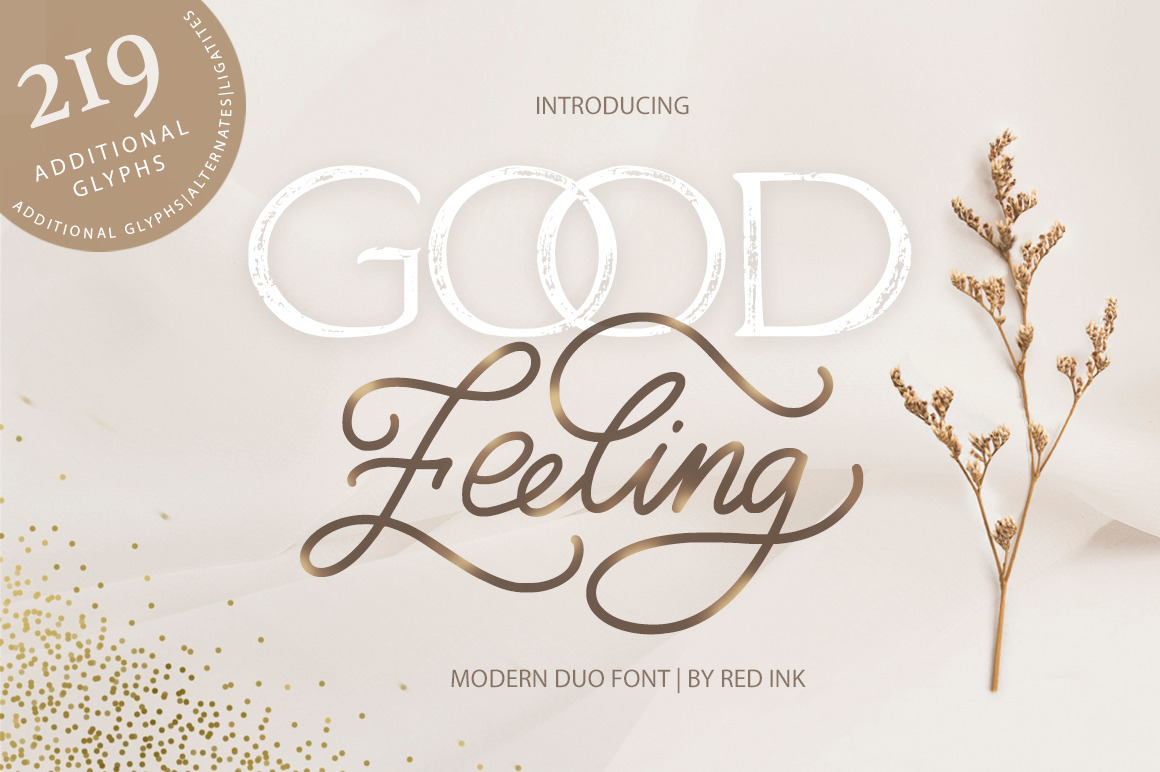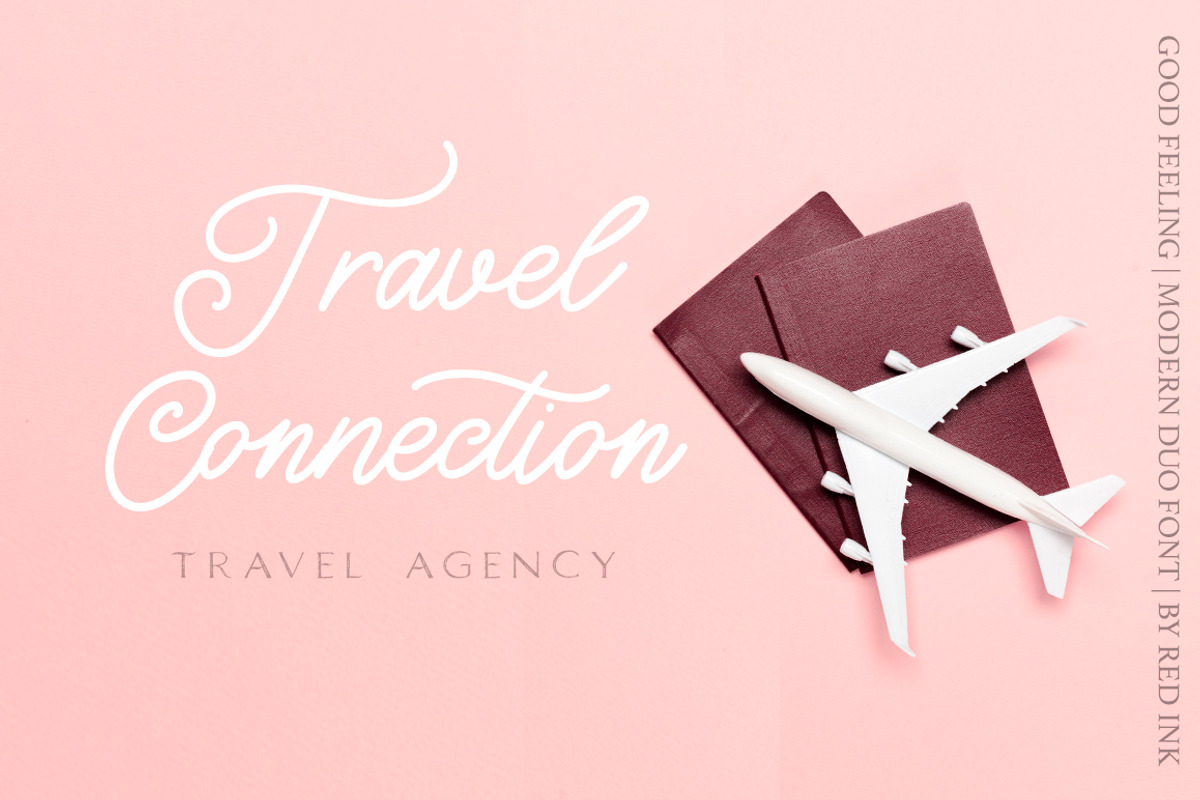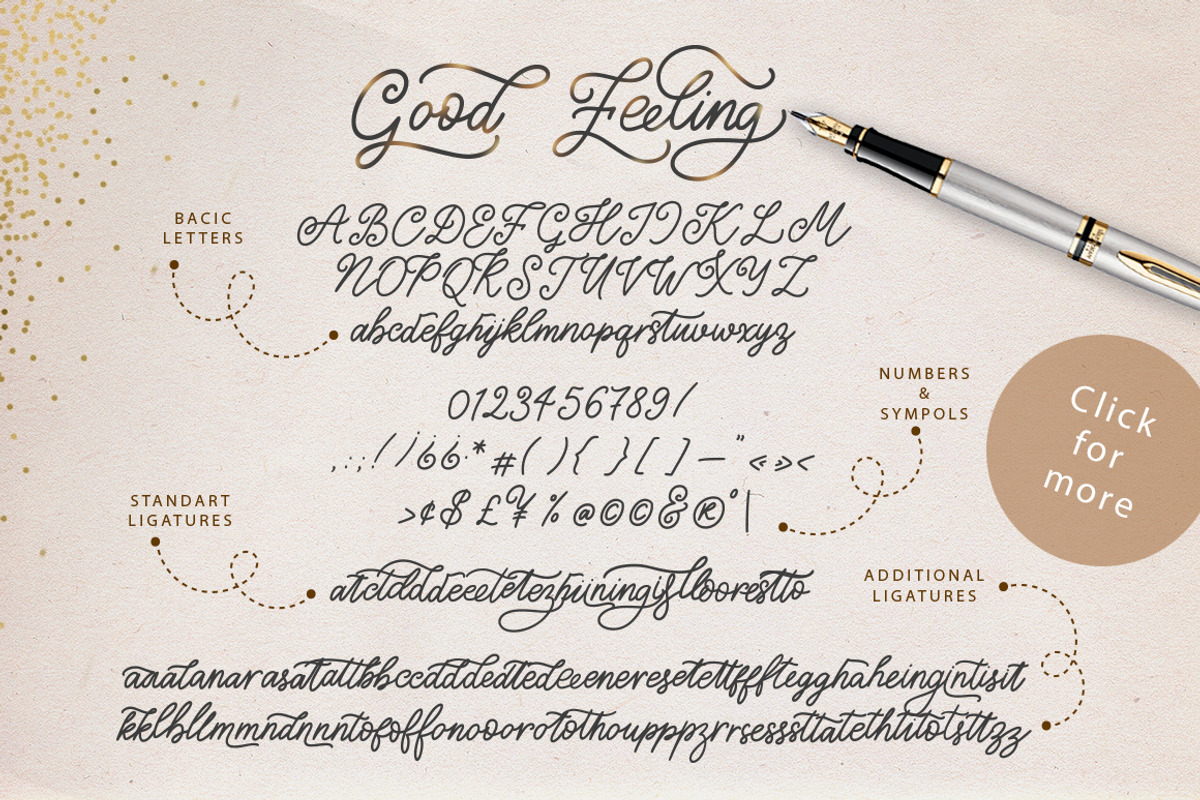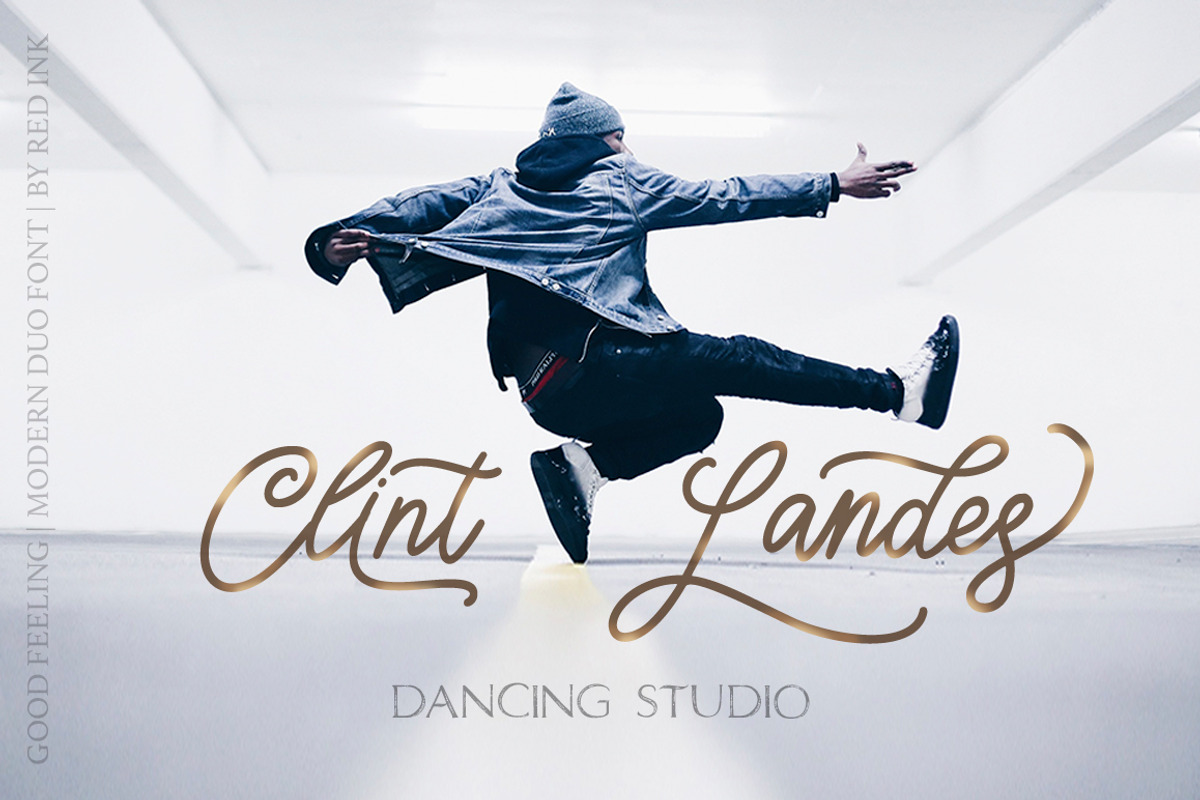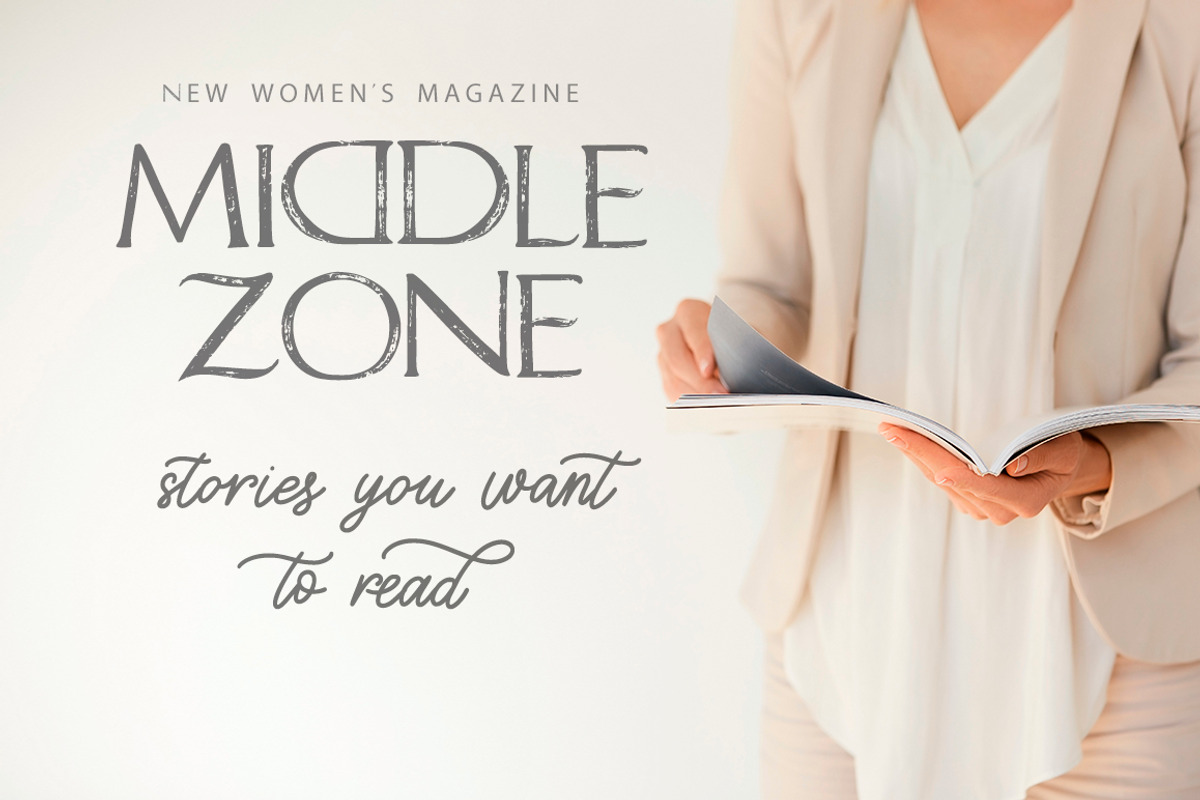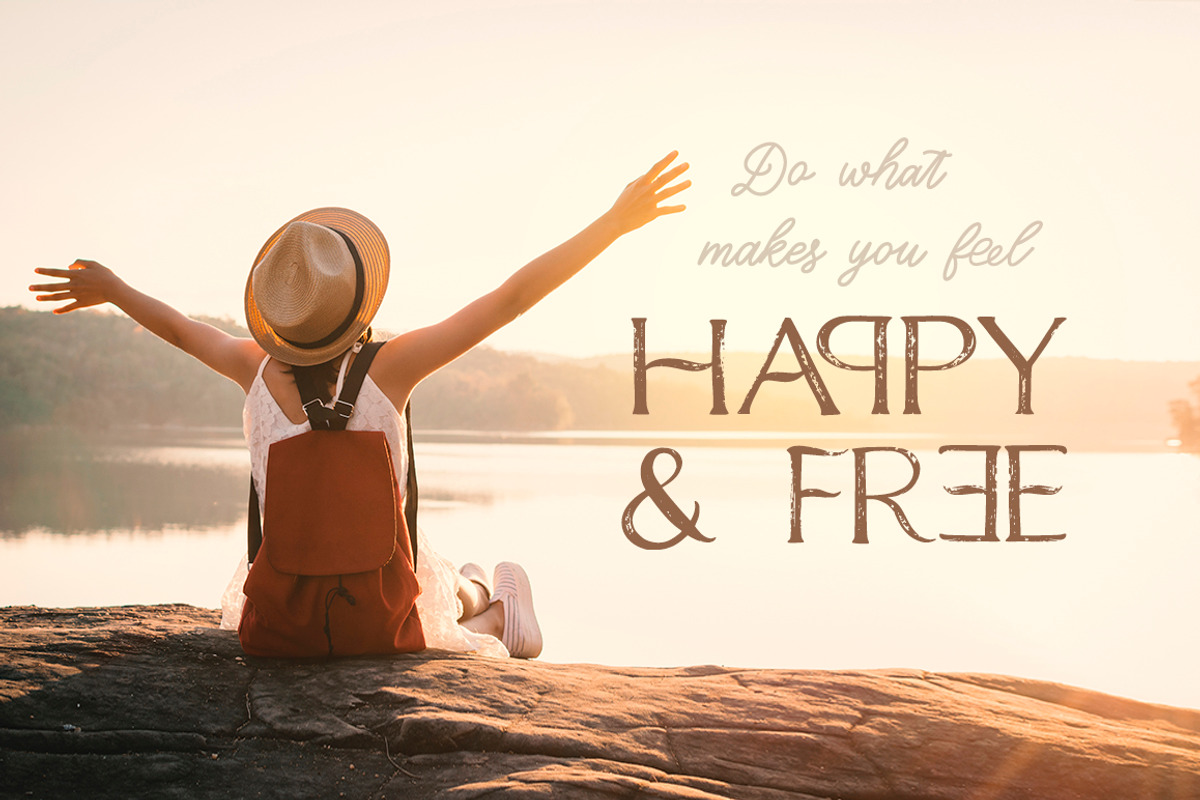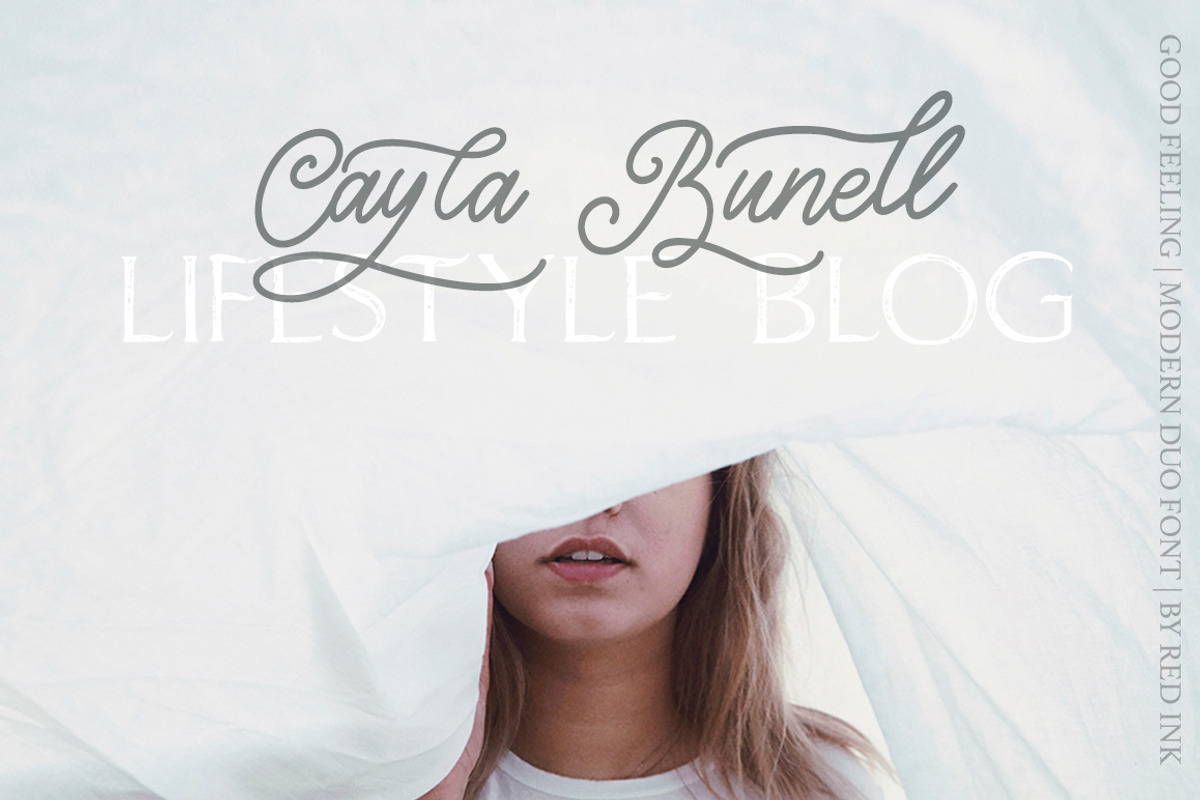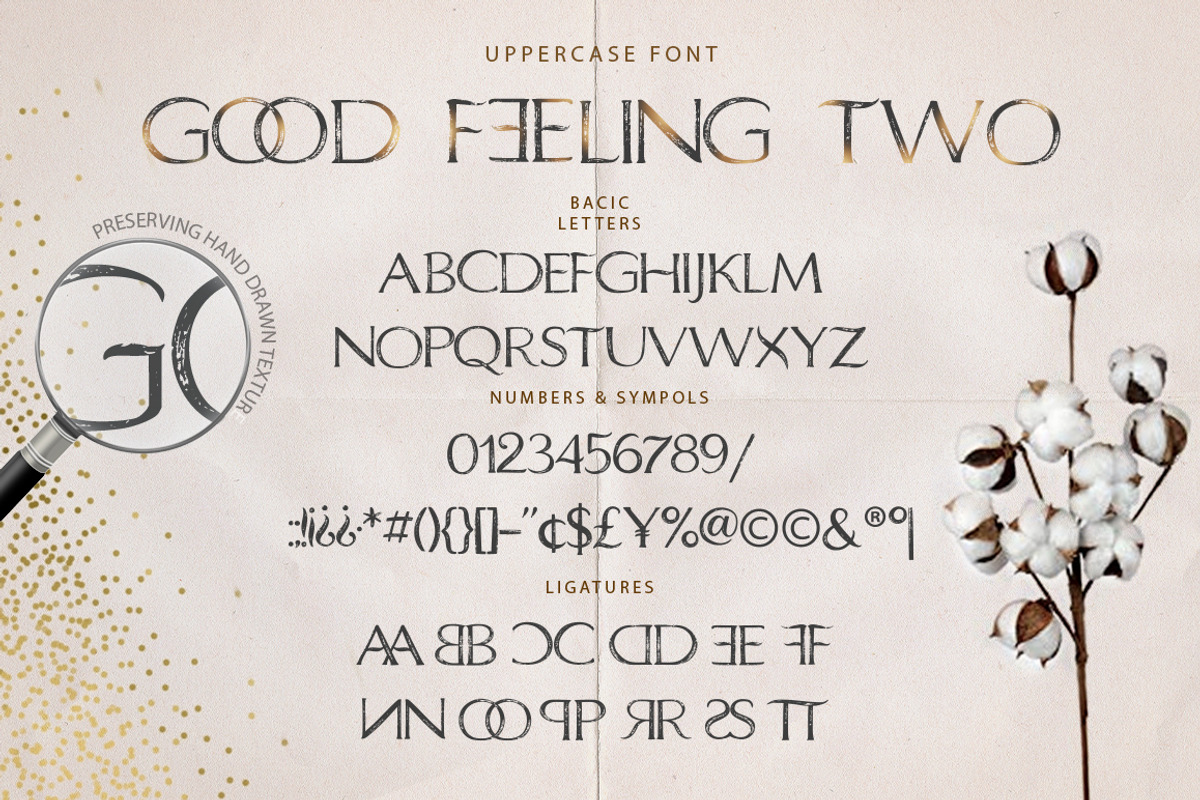
Good Feeling. Modern DUO Font.
This is a good feeling when the result of your work is exactly as you originally intended. This also happened with my new work, the name of which speaks for itself. So, introducing my new double font "Good Feeling" with a lot of OTF, preserving handwritten texture and a little vintage feel.
"Good Feeling" is a beautiful gentle pair of script and hand drawn serif fonts. Modern, expressive; perfectly combined typographic harmony is perfect for posters, greeting cards, t-shits, branding materials, quotes and any other amazing projects you are working on. In conjunction they give a sense of lightness and delicacy but each font can also be used separately.
"Good Feeling" script font have a lot of ligatures and many alternate letters with beautiful swashes. It’s easy repeat the peculiarities of hand-writing, where each letter is special where combinations of letters are unique and the work of a human feels.
"Good Feeling" two – ia hand drawn uppercase serif font with some double letter ligatures characters, numerals and a large range of punctuation. It also preserves handwritten texture for each glyph. Font come with PUA Unicode that gives you full access to the ligatures in software that doesn't support the extra characters. To access these characters you can use Font Book (Mac) or Character Map (Windows).